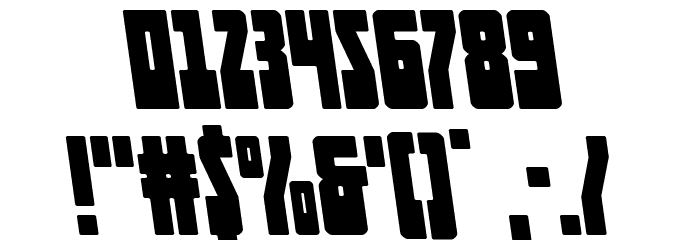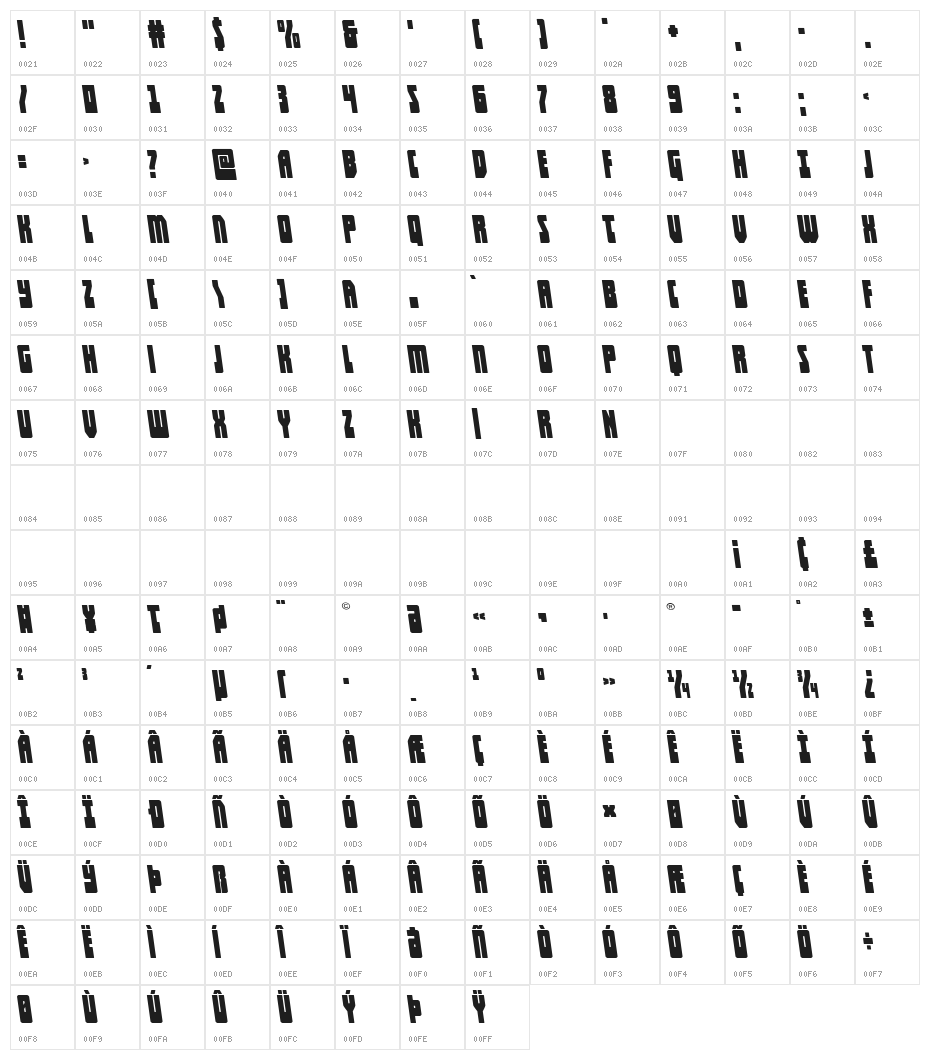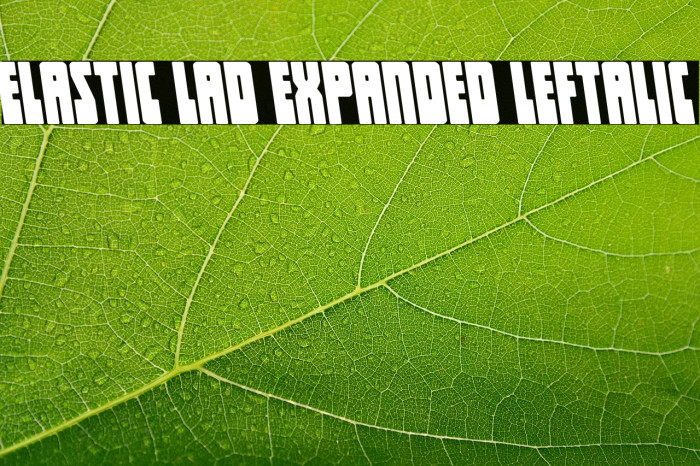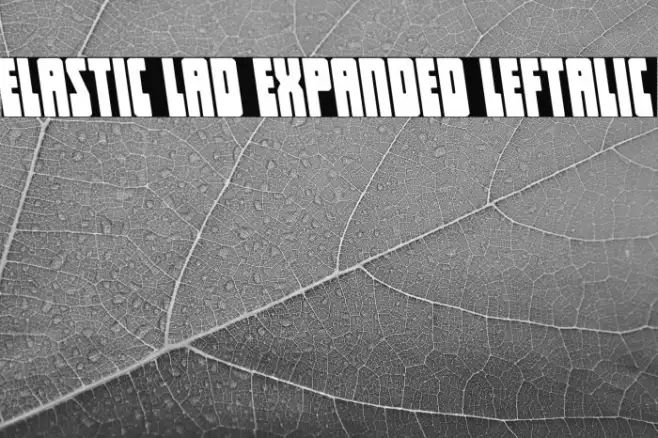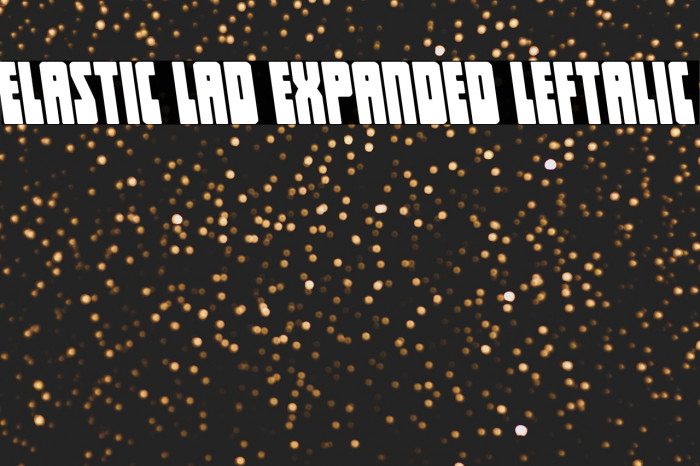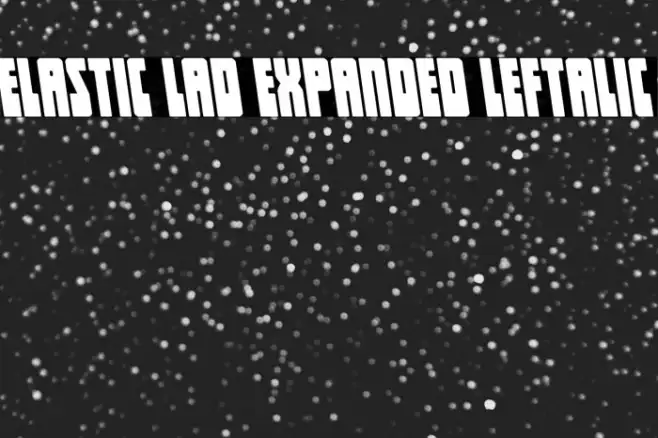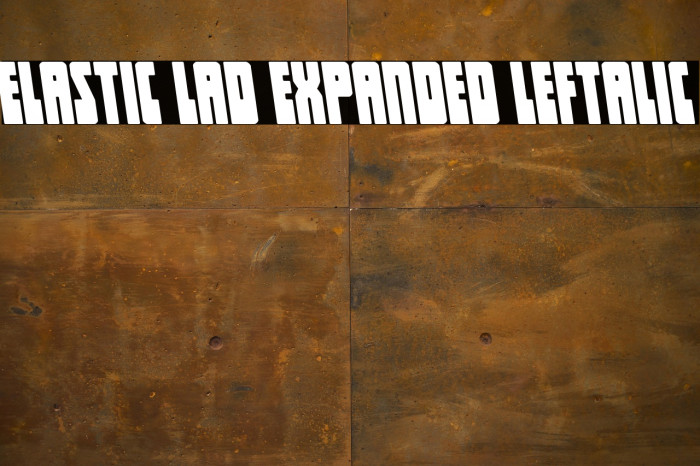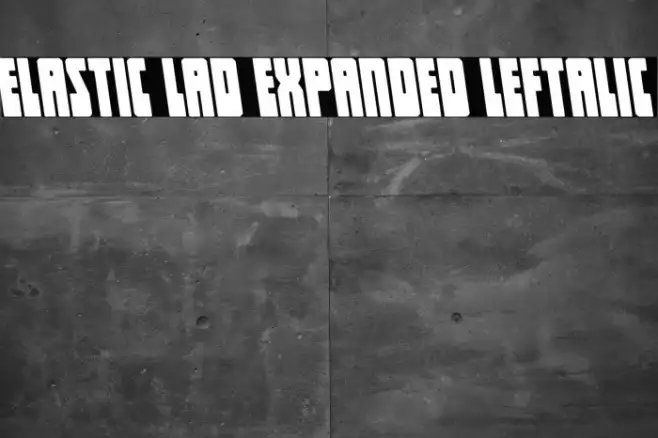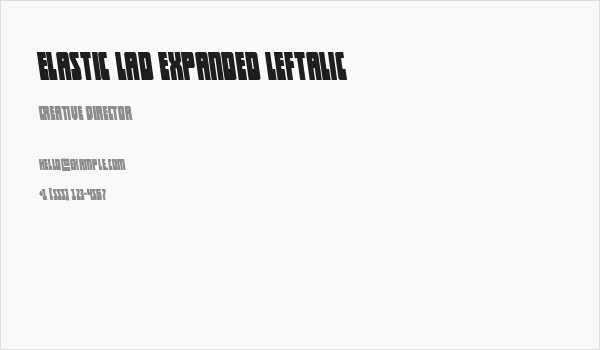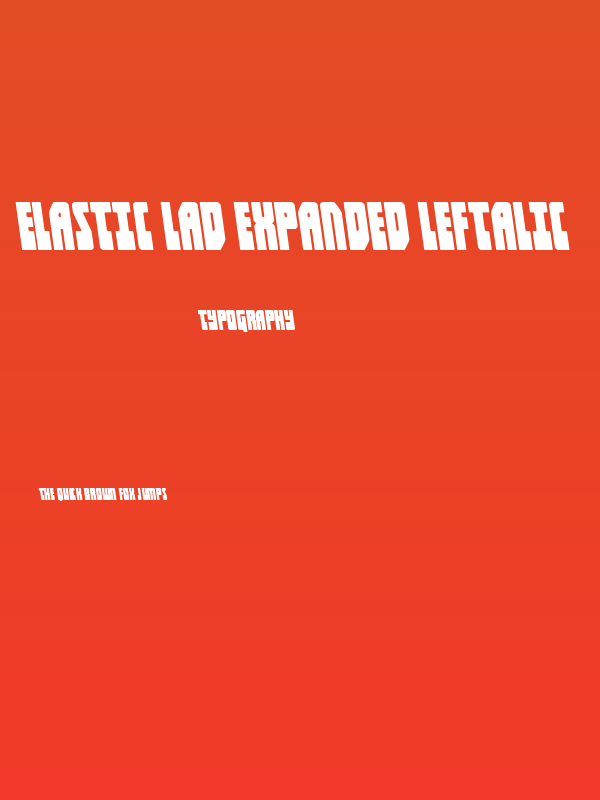
Elastic Lad Expanded Leftalic Font
Elastic Lad Expanded Leftalic Description
This font features a bold and dynamic design with a distinctly expanded and italicized style. The characters are heavily weighted, providing a strong visual impact. The letters are uniformly wide, giving a sense of stability and strength. The italic slant adds a sense of motion and modernity, making it stand out in any design. The numbers and special characters maintain the same boldness and width, ensuring consistency throughout. This font is ideal for projects that require a bold statement and a modern aesthetic.
WidthExpanded
Proposed ProjectsIdeal for posters, headlines, branding, and any design requiring a strong, modern impact.